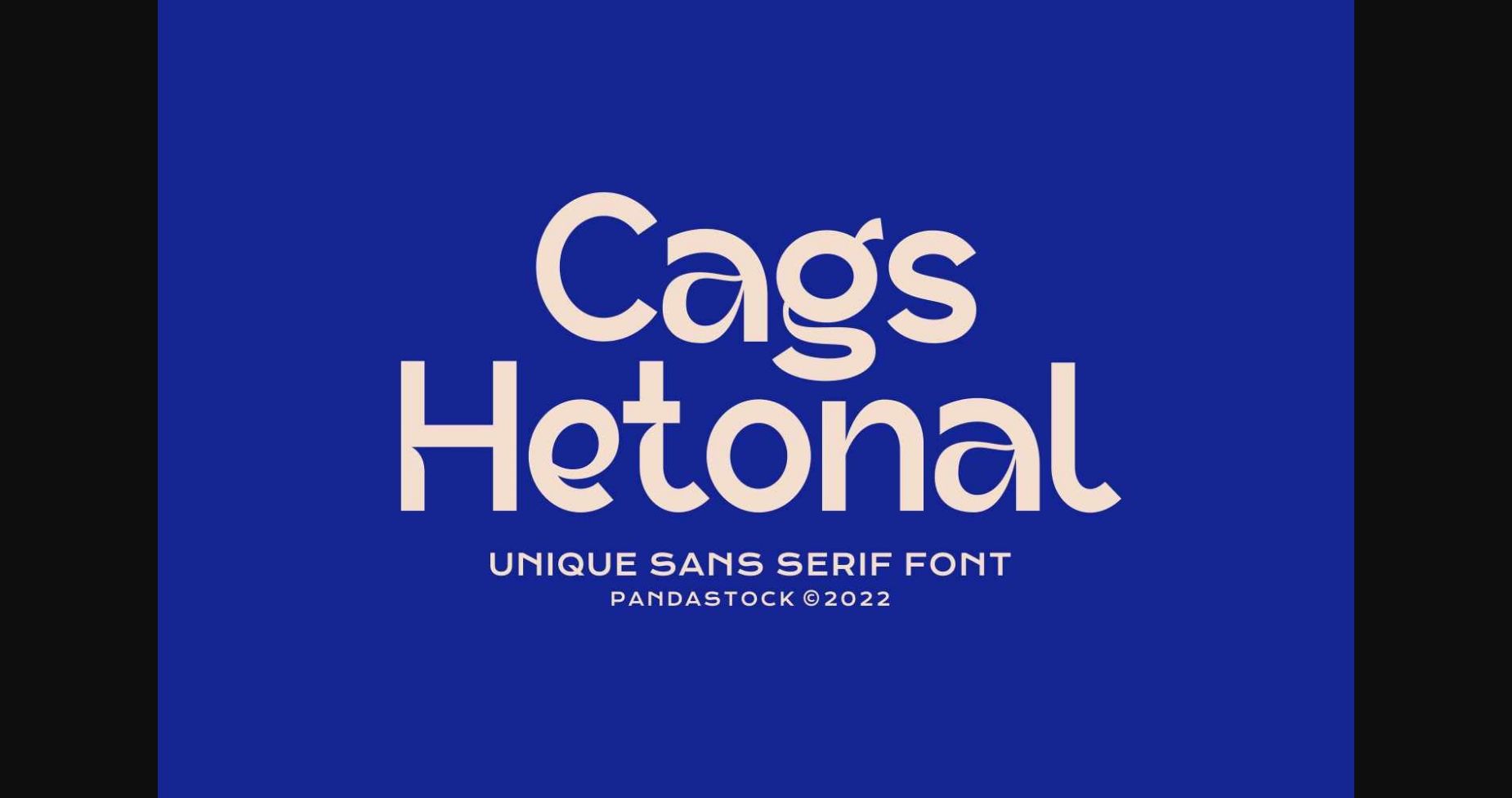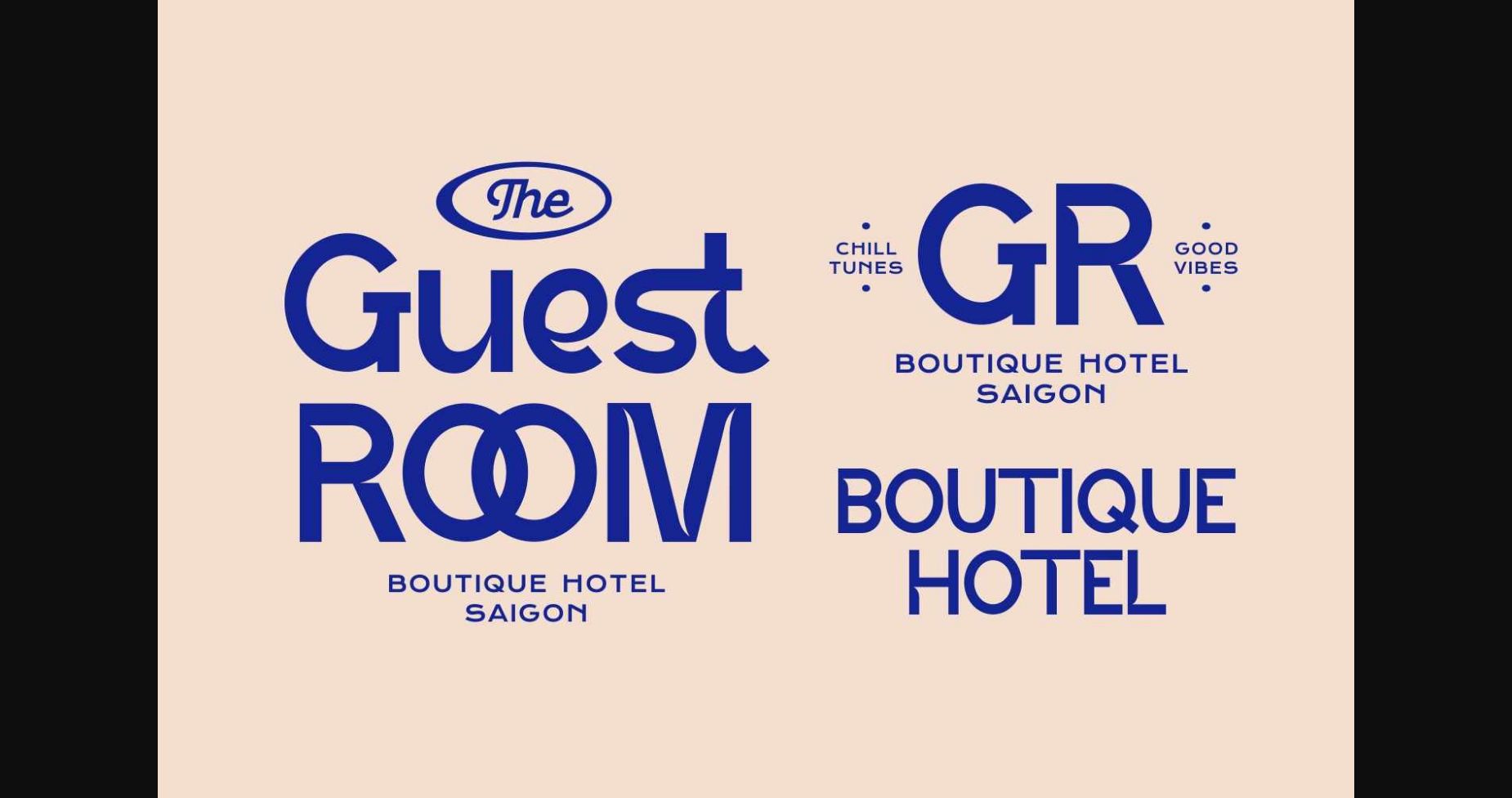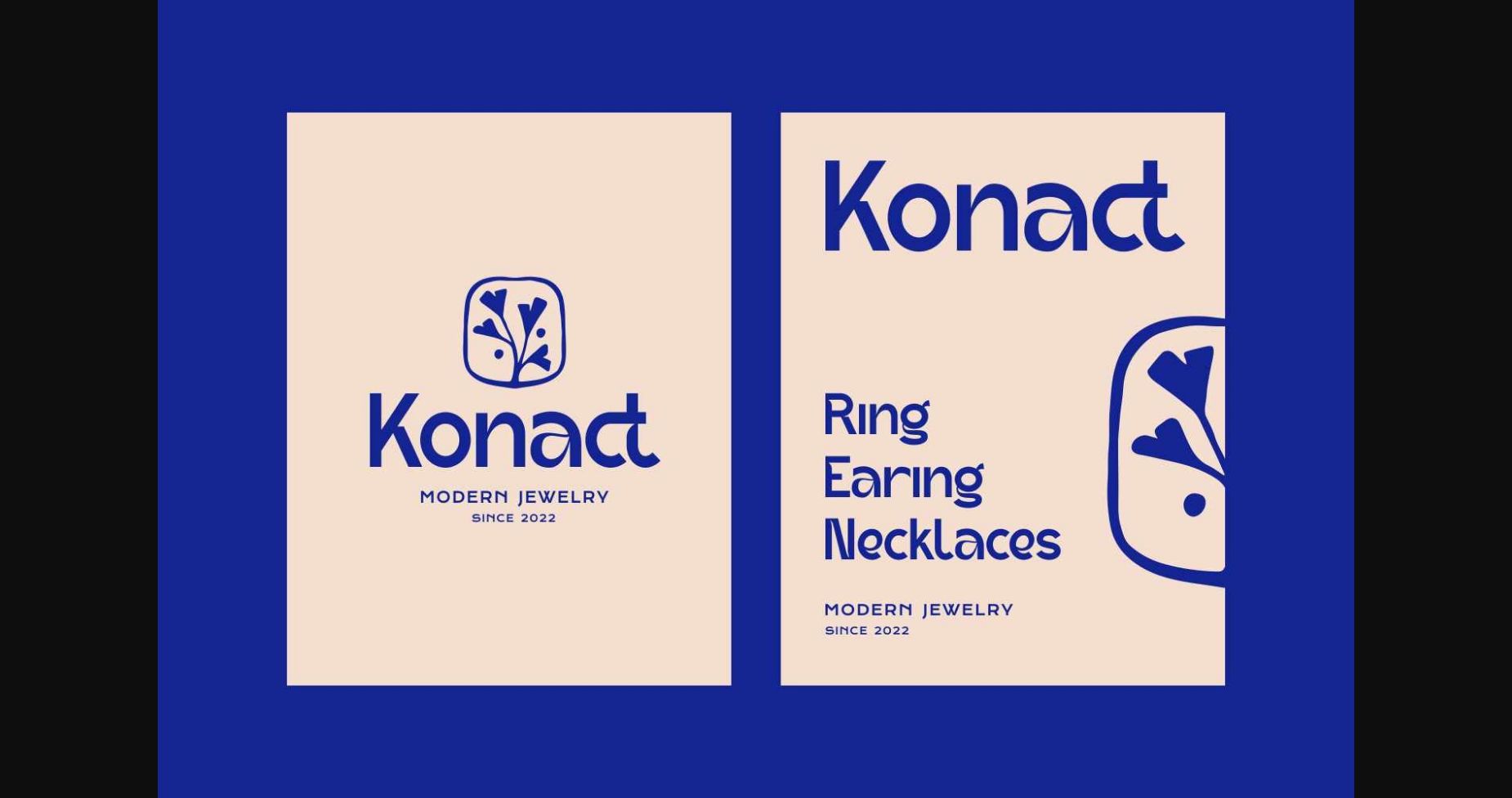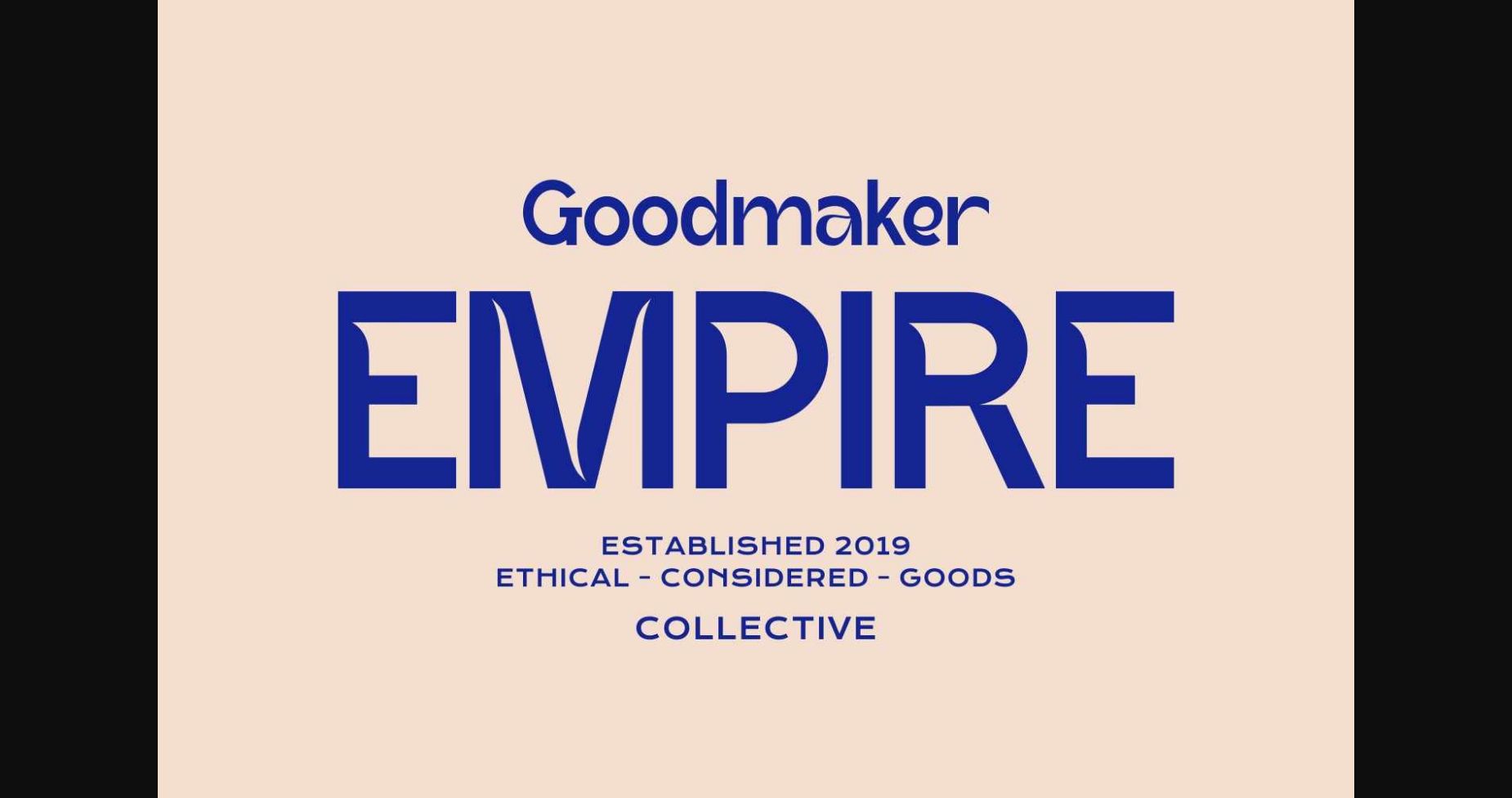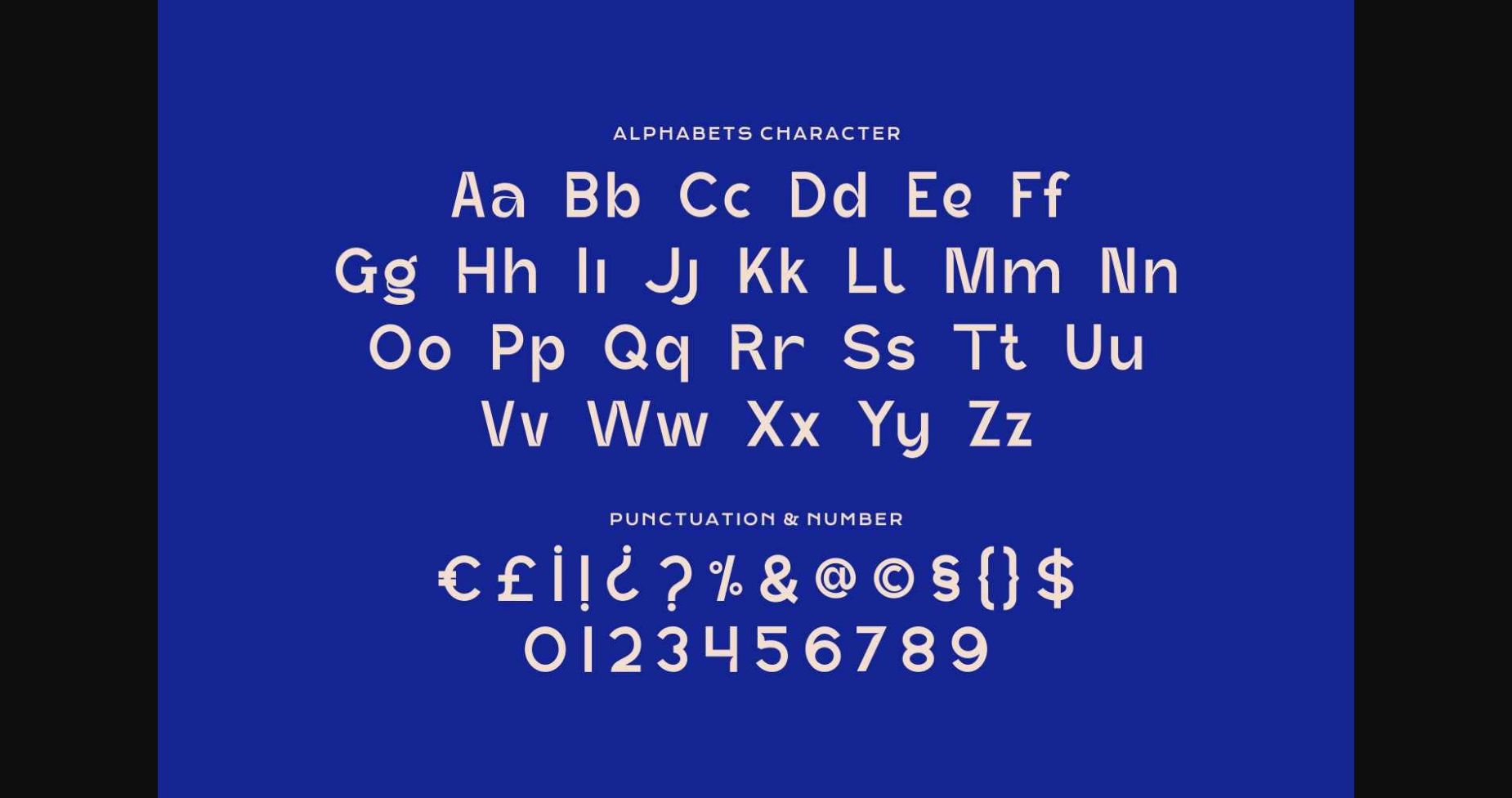
About Cags Hetonal Font
Cags Hetonal is a rounded sans serif font with visual elegance, smooth curves, and beautiful ligatures, making your work look true and attractive.
A versatile font that works in both large and small sizes. This font is suitable for a wide variety of projects such as logos, invitations, branding, magazine, photography, card, product packaging, product mockup, mugs, quotes, posters, labels, signatures, editorials, websites, art deco, social media, and much more.
A font that is perfect for all business sectors including personal projects, studios, corporate, creative agency, industrial, company, etc.
A versatile font that works in both large and small sizes. This font is suitable for a wide variety of projects such as logos, invitations, branding, magazine, photography, card, product packaging, product mockup, mugs, quotes, posters, labels, signatures, editorials, websites, art deco, social media, and much more.
A font that is perfect for all business sectors including personal projects, studios, corporate, creative agency, industrial, company, etc.